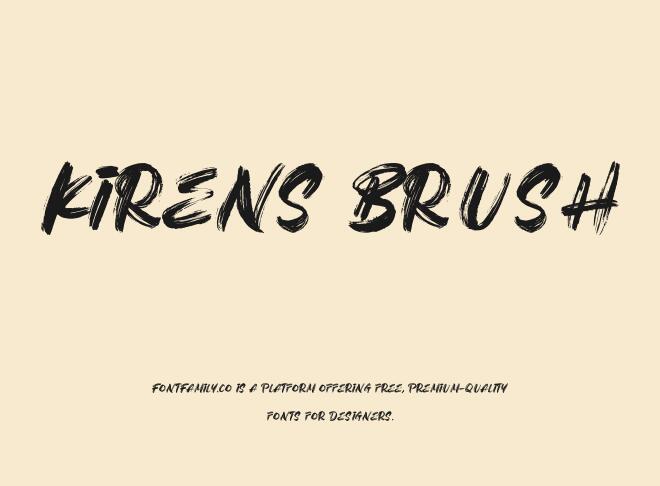
Kirens Brush Font
Kirens Brush Font is a dynamic, handwritten typeface with a brush style. Its organic texture and expressive strokes make it perfect for creating eye-catching designs, logos, and headlines. It beautifully captures the spontaneity and variation of brush strokes, giving a sense of authenticity to your design. Similar to fonts like Brush Script MT and Mistral, Kirens Brush Font stands out with its unique charm and character. Its bold, yet informal style makes it a great choice for a variety of design projects, from branding and packaging to social media graphics and posters. With its distinct brush style, Kirens Brush Font is sure to add a touch of creativity and originality to your designs.